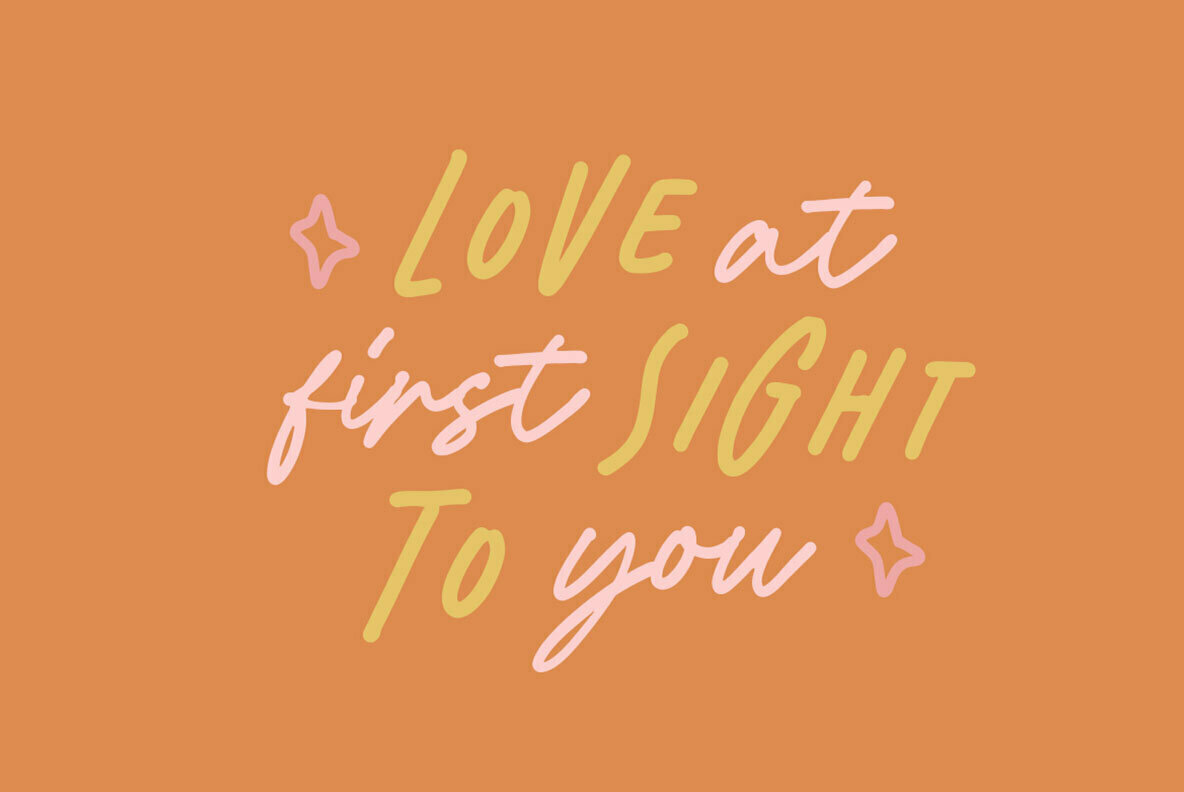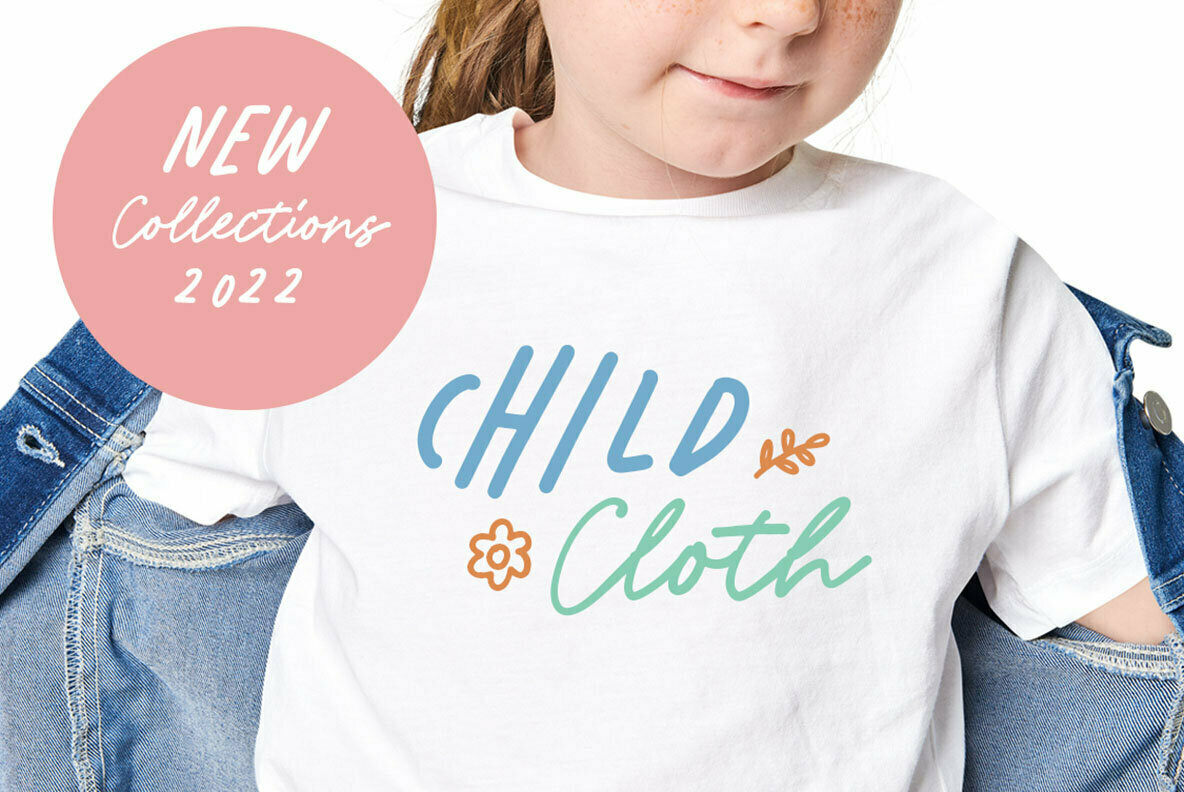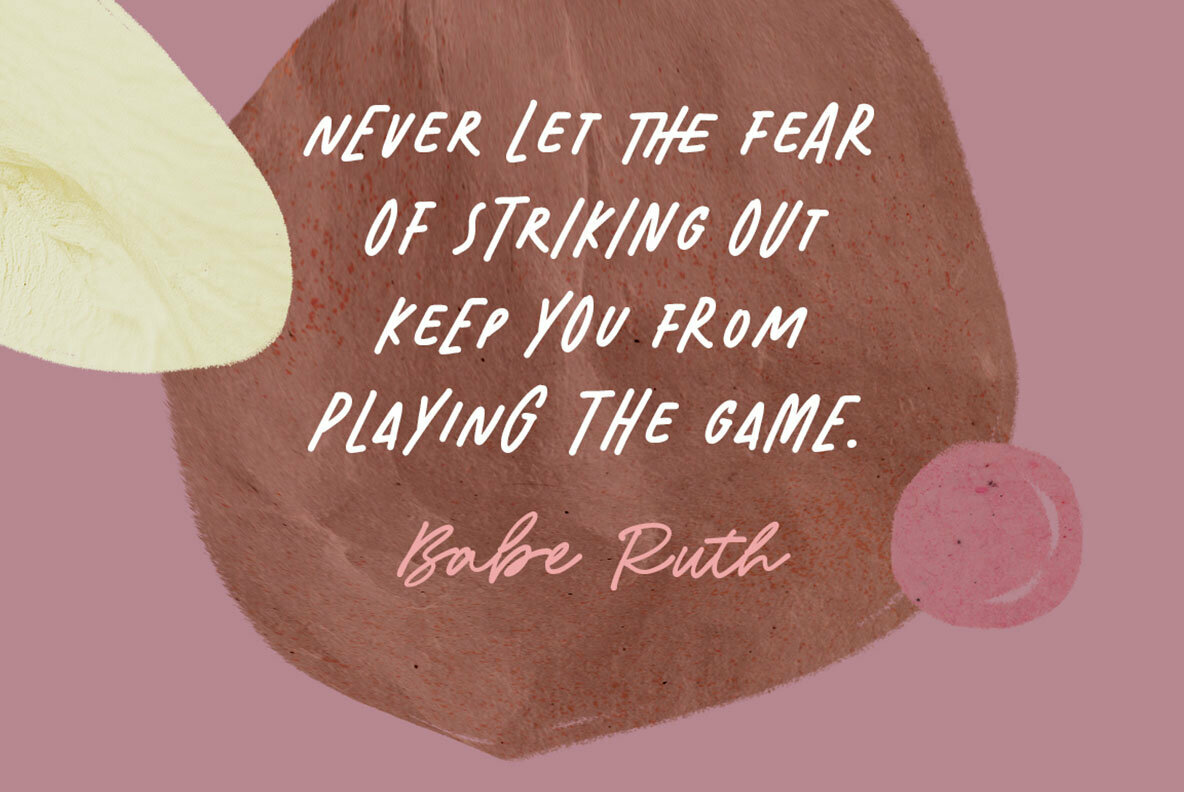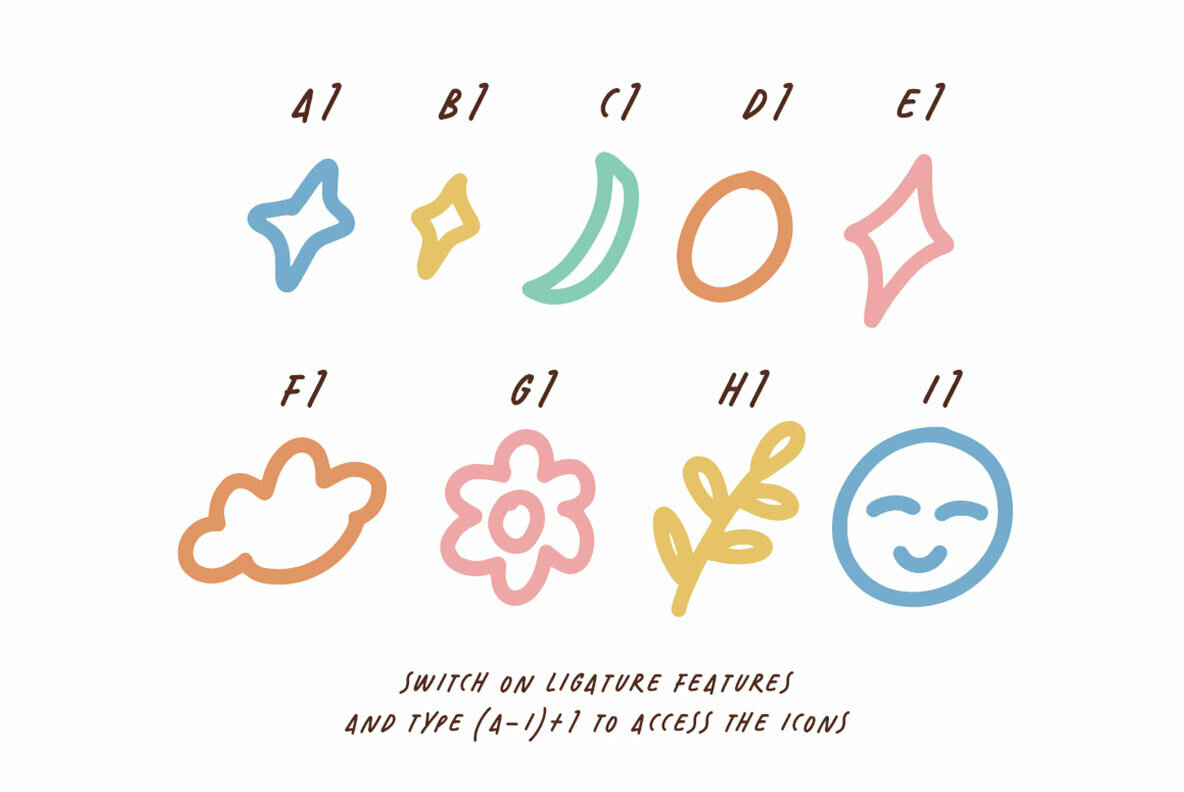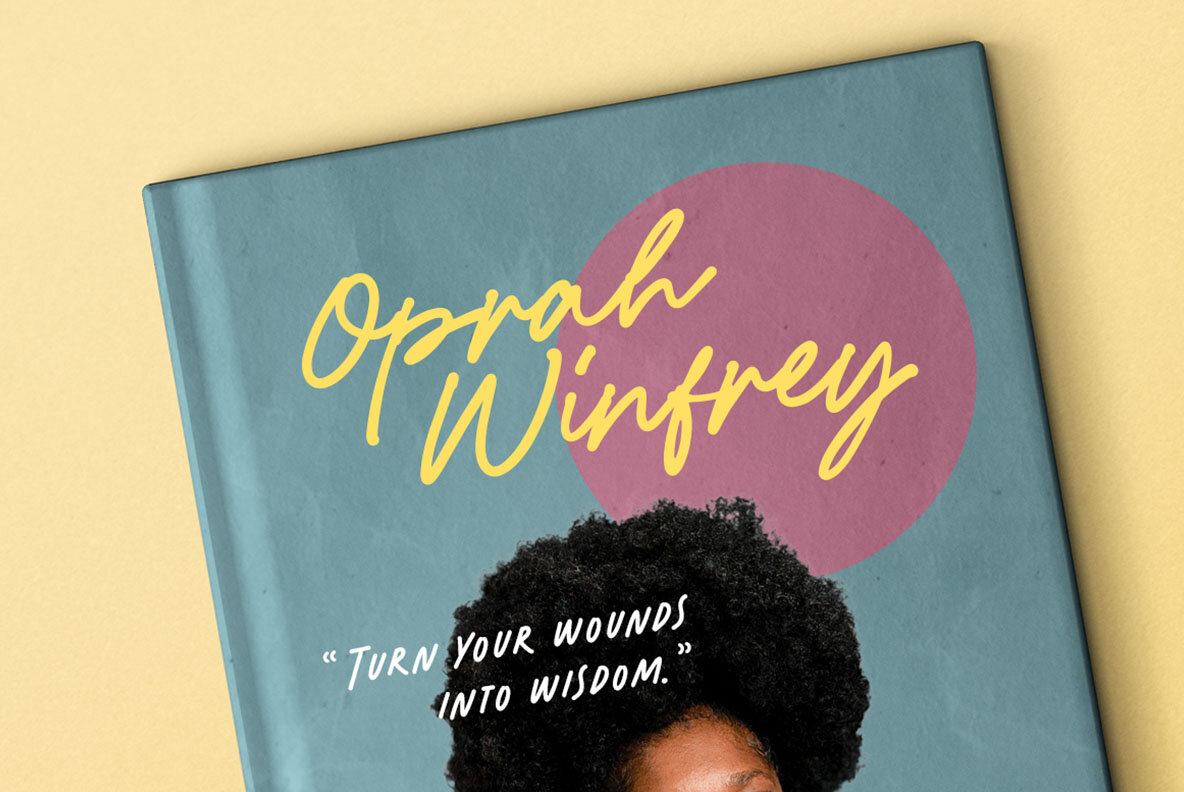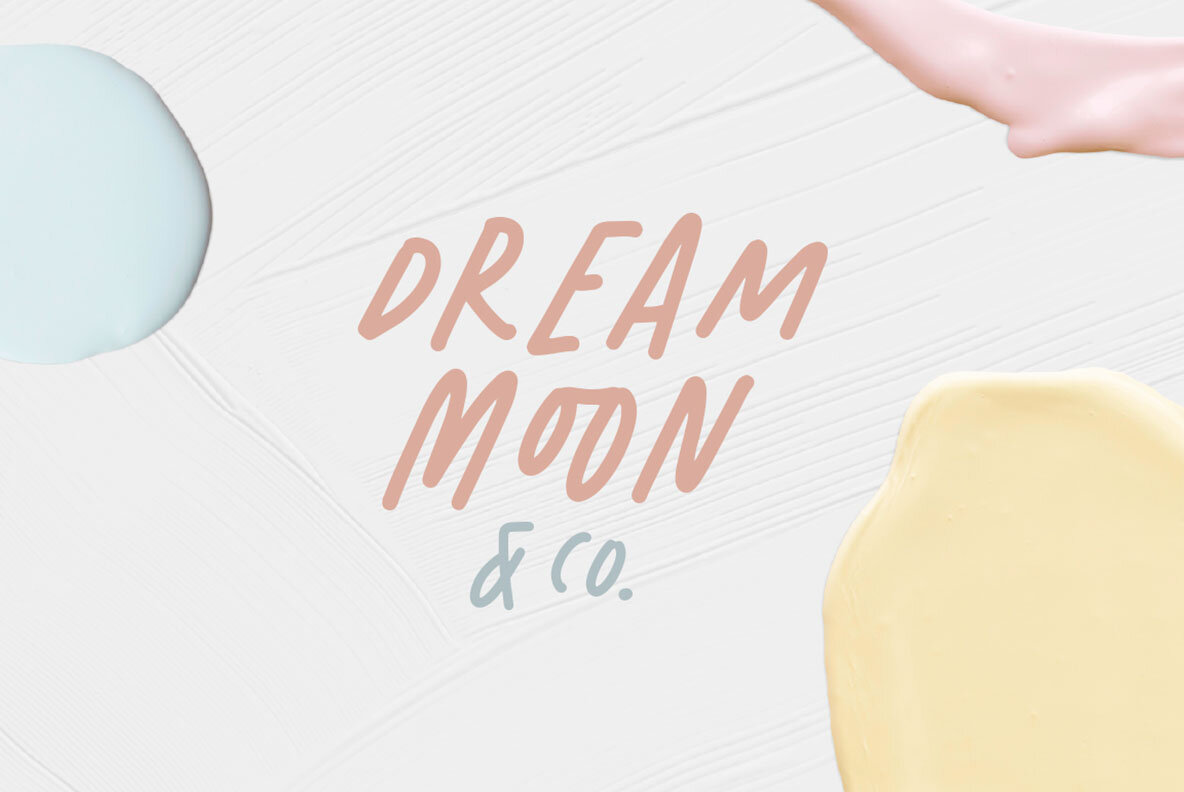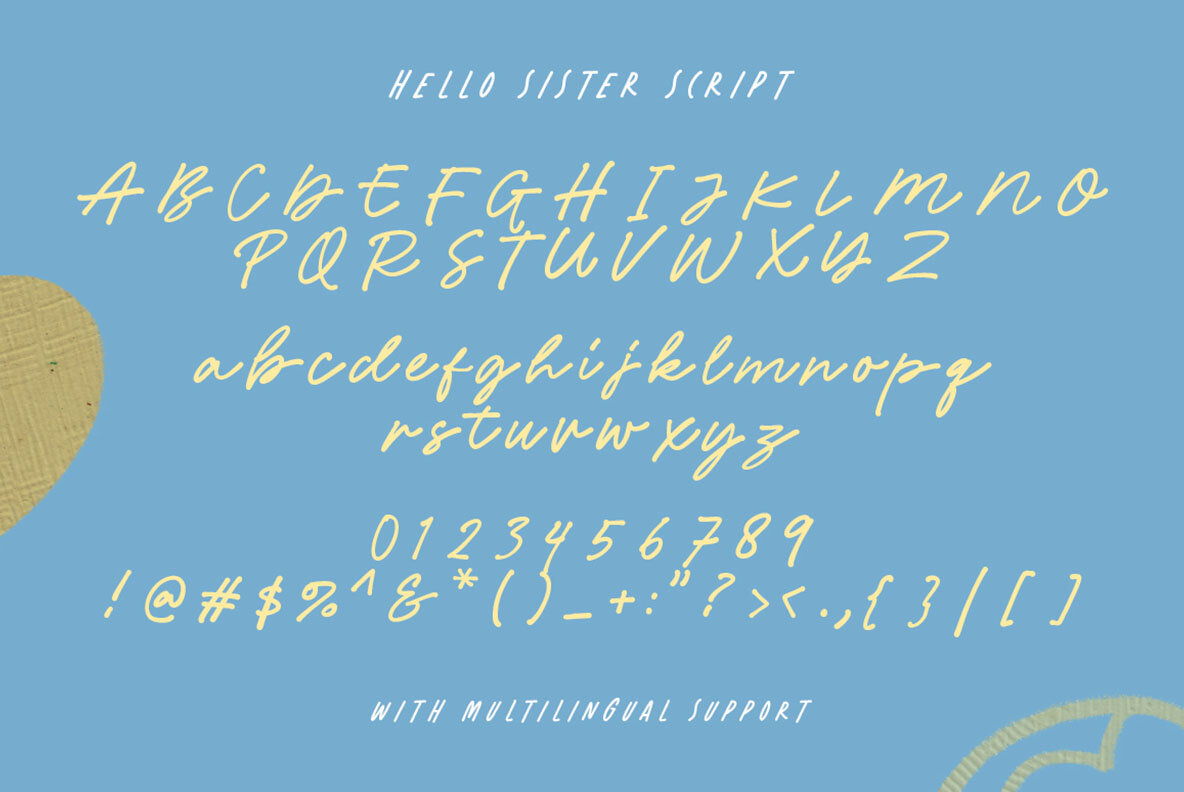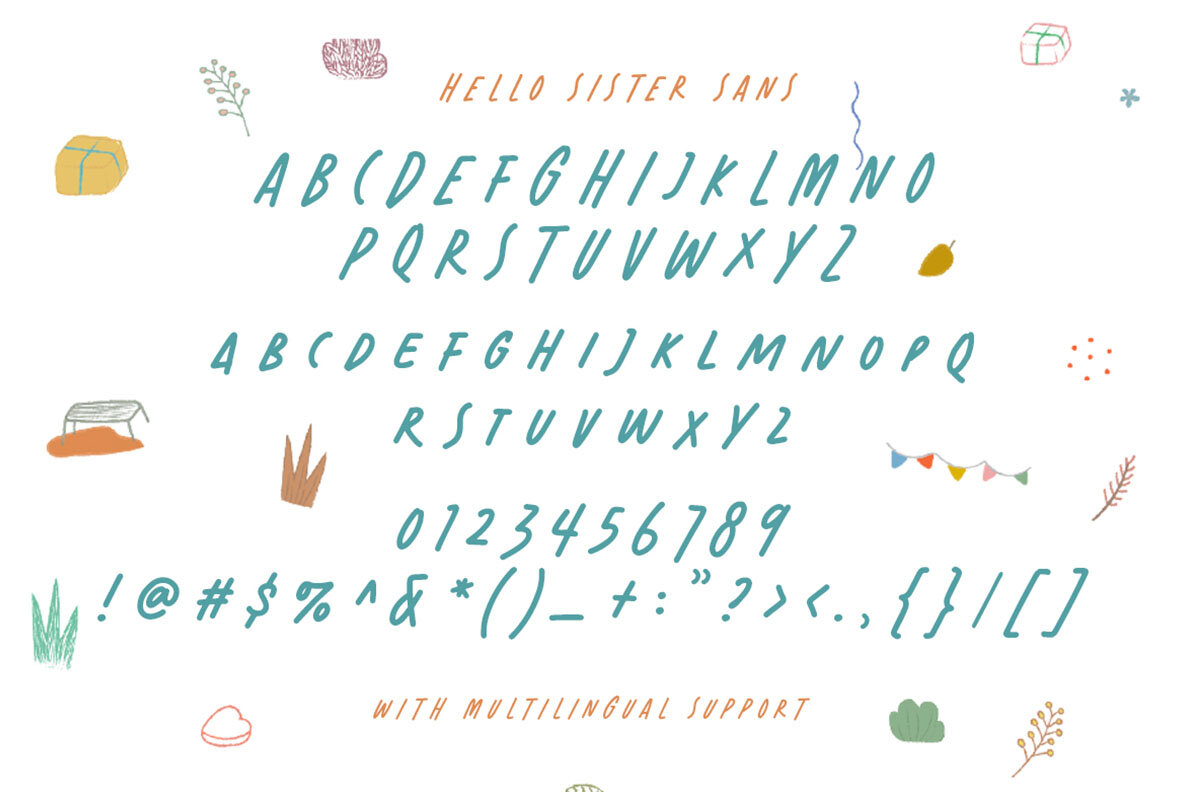
Hello Sister Font
Infuse a touch of whimsy and grace into your projects with Hello Sister, a dynamic font pair that marries a playful sans serif with an elegant script. This delightful combination strikes a balance between casual charm and sophisticated appeal, perfectly suited for a diverse array of applications such as headlines, logotypes, apparel design, invitations, branding, packaging, and advertising.Hello Sister: Playful yet Feminine Typeface Duo